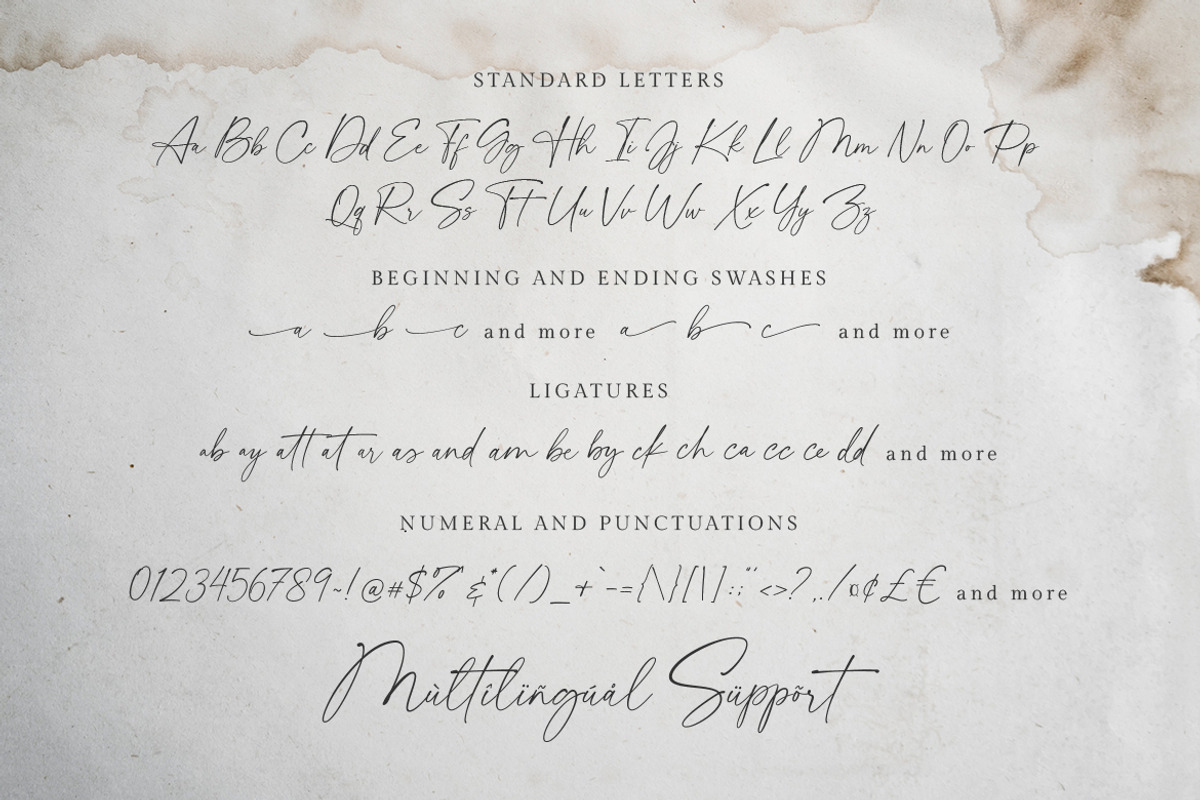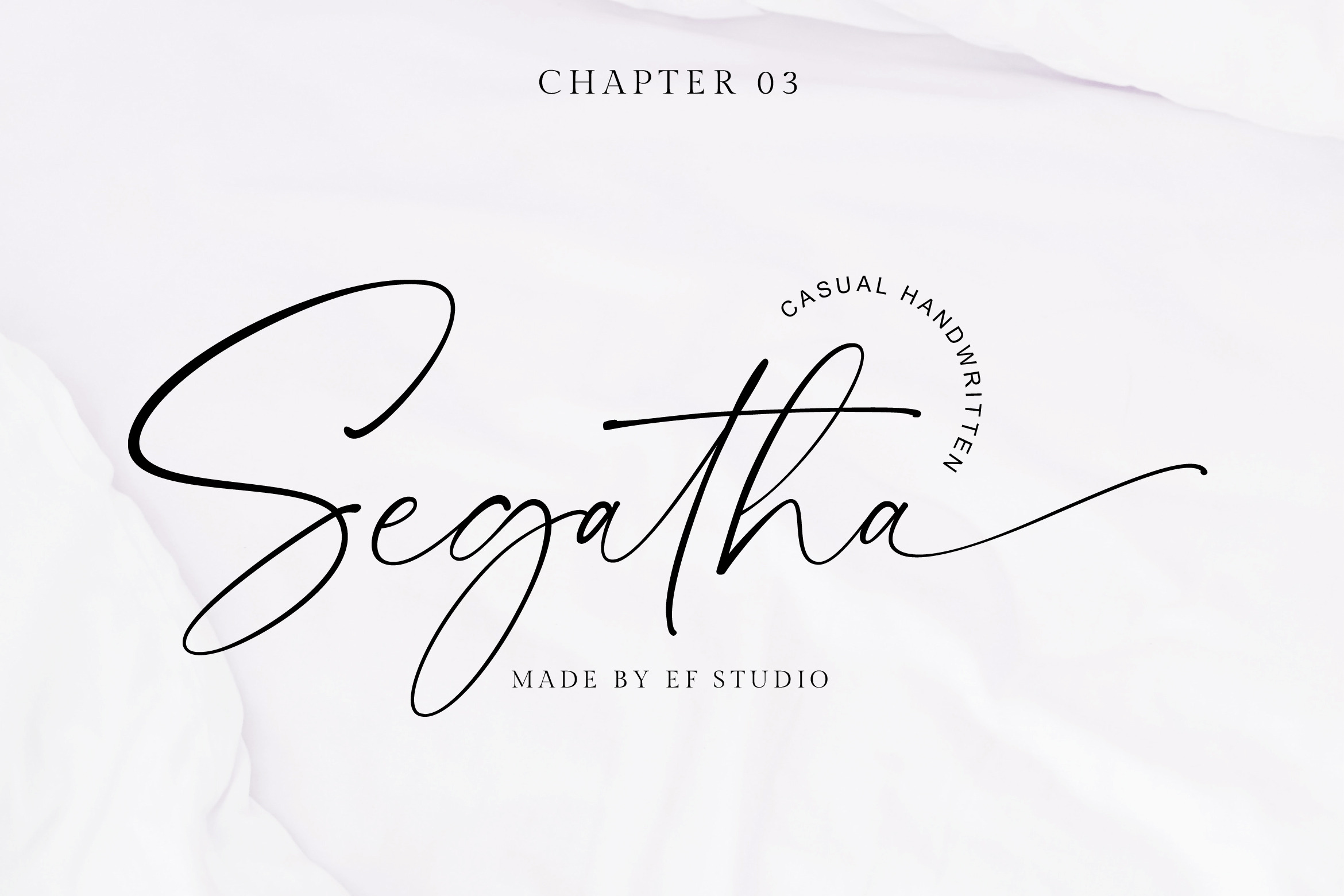
Segatha | Casual Handwritten Font
Segatha is a beautiful casual handwritten font with beginning and ending lowercase swashes, 94 ligatures that add more beautiful and aesthetic fonts to perfect your extraordinary project. very suitable for branding, invitations, watermarks, photography, and more